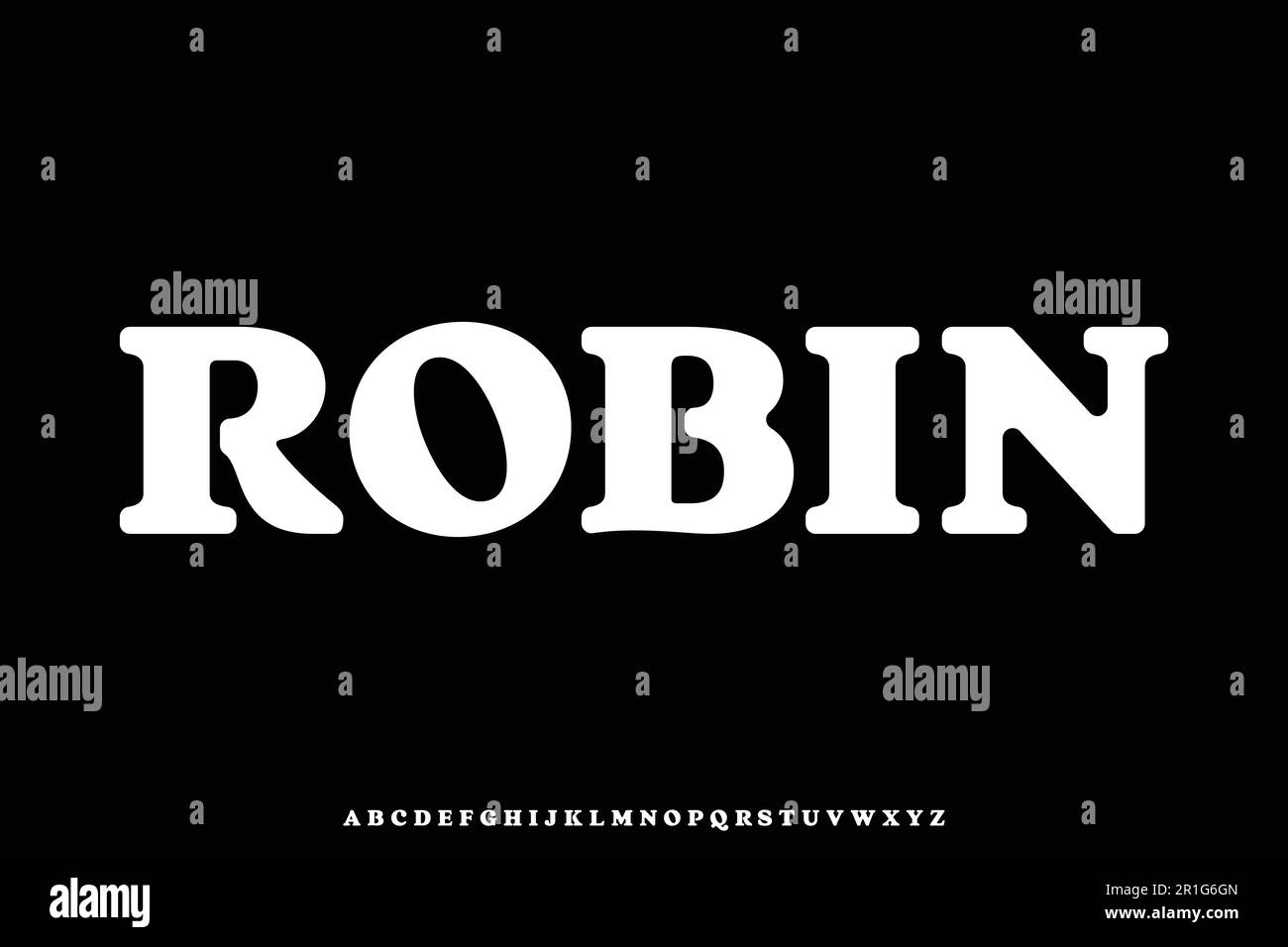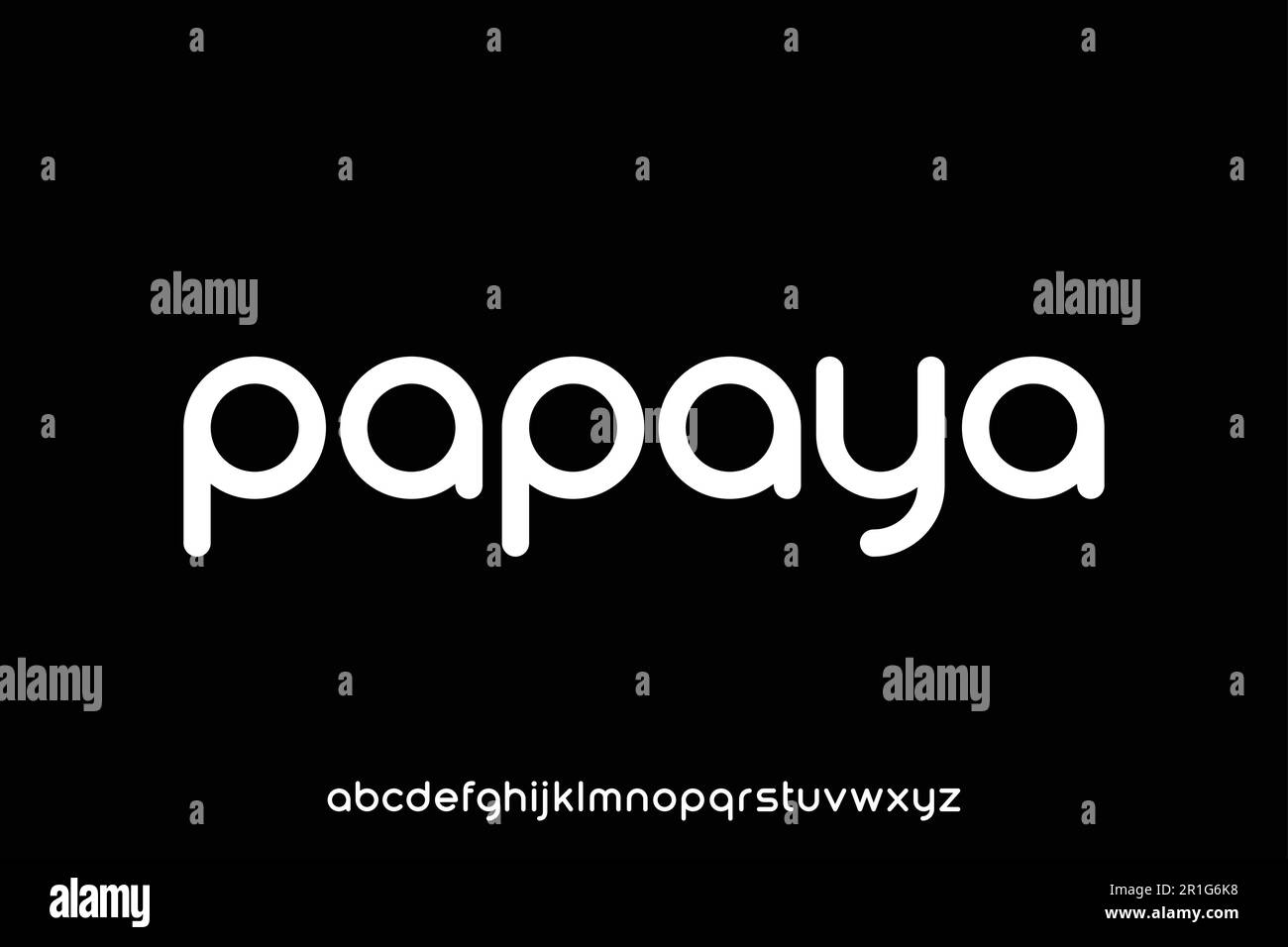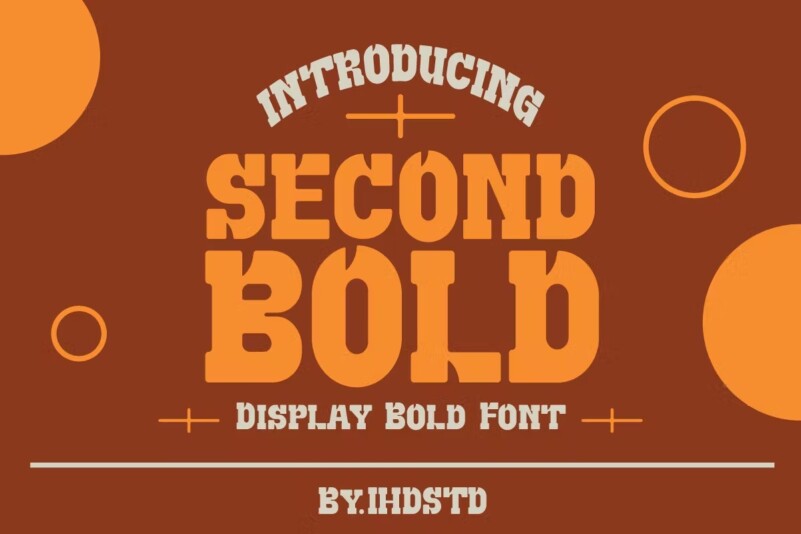
What Does Display Font Mean . In this typography series, we understand what makes the selection of typography crucial. — the clue's in the name: — in this article, we’ve looked at a display font definition, the differences between text and display fonts, the typeface history of. We explain how fonts help us to process information and how they change perceptions. It is applied to the @font. Display fonts are designed to be displayed at a large scale. Think headlines, banners, signage, or even billboards. they’re big, they’re bold, they’re pretty quirky, but what is a display font? — display fonts are a specialized category of fonts meant for large sizes where readability and immediate visual impact are important in equal. Every font actually possessed a. — a font refers to these metal frames or blocks that were a part of this larger and broader group of typefaces.
We explain how fonts help us to process information and how they change perceptions. In this typography series, we understand what makes the selection of typography crucial. — the clue's in the name: — a font refers to these metal frames or blocks that were a part of this larger and broader group of typefaces. they’re big, they’re bold, they’re pretty quirky, but what is a display font? — display fonts are a specialized category of fonts meant for large sizes where readability and immediate visual impact are important in equal. It is applied to the @font. Display fonts are designed to be displayed at a large scale. Think headlines, banners, signage, or even billboards. Every font actually possessed a.
What Does Display Font Mean Think headlines, banners, signage, or even billboards. — in this article, we’ve looked at a display font definition, the differences between text and display fonts, the typeface history of. — a font refers to these metal frames or blocks that were a part of this larger and broader group of typefaces. Every font actually possessed a. Display fonts are designed to be displayed at a large scale. Think headlines, banners, signage, or even billboards. they’re big, they’re bold, they’re pretty quirky, but what is a display font? In this typography series, we understand what makes the selection of typography crucial. — display fonts are a specialized category of fonts meant for large sizes where readability and immediate visual impact are important in equal. It is applied to the @font. We explain how fonts help us to process information and how they change perceptions. — the clue's in the name:
Displaying Font What Does Display Font Mean In this typography series, we understand what makes the selection of typography crucial. — in this article, we’ve looked at a display font definition, the differences between text and display fonts, the typeface history of. Think headlines, banners, signage, or even billboards. We explain how fonts help us to process information and how they change perceptions. — a. What Does Display Font Mean.
7 Common Types of Fonts All Designers Should Know What Does Display Font Mean Display fonts are designed to be displayed at a large scale. — the clue's in the name: We explain how fonts help us to process information and how they change perceptions. In this typography series, we understand what makes the selection of typography crucial. they’re big, they’re bold, they’re pretty quirky, but what is a display font? . What Does Display Font Mean.
Displaying Font What Does Display Font Mean — in this article, we’ve looked at a display font definition, the differences between text and display fonts, the typeface history of. Display fonts are designed to be displayed at a large scale. — a font refers to these metal frames or blocks that were a part of this larger and broader group of typefaces. It is applied. What Does Display Font Mean.
Second Bold Display Font Free Font What Does Display Font Mean Display fonts are designed to be displayed at a large scale. Think headlines, banners, signage, or even billboards. Every font actually possessed a. — a font refers to these metal frames or blocks that were a part of this larger and broader group of typefaces. — display fonts are a specialized category of fonts meant for large sizes. What Does Display Font Mean.
36 Font Styles to Consider When Branding Your Business or Blog What Does Display Font Mean Every font actually possessed a. — in this article, we’ve looked at a display font definition, the differences between text and display fonts, the typeface history of. — a font refers to these metal frames or blocks that were a part of this larger and broader group of typefaces. It is applied to the @font. Think headlines, banners,. What Does Display Font Mean.
Display Fonts Text Effect and Logo Design Font What Does Display Font Mean — display fonts are a specialized category of fonts meant for large sizes where readability and immediate visual impact are important in equal. — in this article, we’ve looked at a display font definition, the differences between text and display fonts, the typeface history of. — the clue's in the name: Every font actually possessed a. . What Does Display Font Mean.
The Best New Display Fonts Pangram Foundry What Does Display Font Mean It is applied to the @font. — in this article, we’ve looked at a display font definition, the differences between text and display fonts, the typeface history of. they’re big, they’re bold, they’re pretty quirky, but what is a display font? — a font refers to these metal frames or blocks that were a part of this. What Does Display Font Mean.
Excellent Display font by 177Studio FontRiver What Does Display Font Mean — in this article, we’ve looked at a display font definition, the differences between text and display fonts, the typeface history of. It is applied to the @font. they’re big, they’re bold, they’re pretty quirky, but what is a display font? In this typography series, we understand what makes the selection of typography crucial. — a font. What Does Display Font Mean.
Text Fonts Vs Display Fonts all pros and cons » NetworkUstad What Does Display Font Mean — display fonts are a specialized category of fonts meant for large sizes where readability and immediate visual impact are important in equal. Every font actually possessed a. — in this article, we’ve looked at a display font definition, the differences between text and display fonts, the typeface history of. they’re big, they’re bold, they’re pretty quirky,. What Does Display Font Mean.